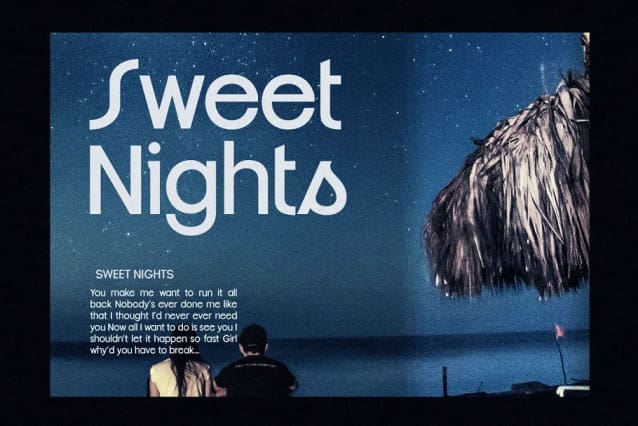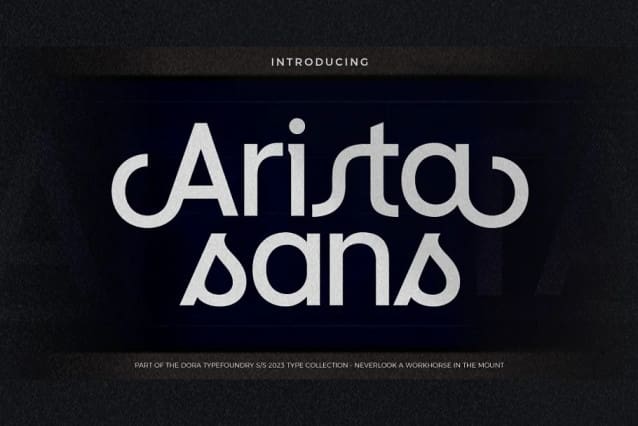
Arista Sans Font
Arista Sans Font is a true sans serif typeface enhanced with bold, high-contrast geometric shapes. Arista is perfect if you want to try to make your presentation perfect for all purposes, social media graphics or other designs. And of course you can use this font and pair it well with a bold sans serif.